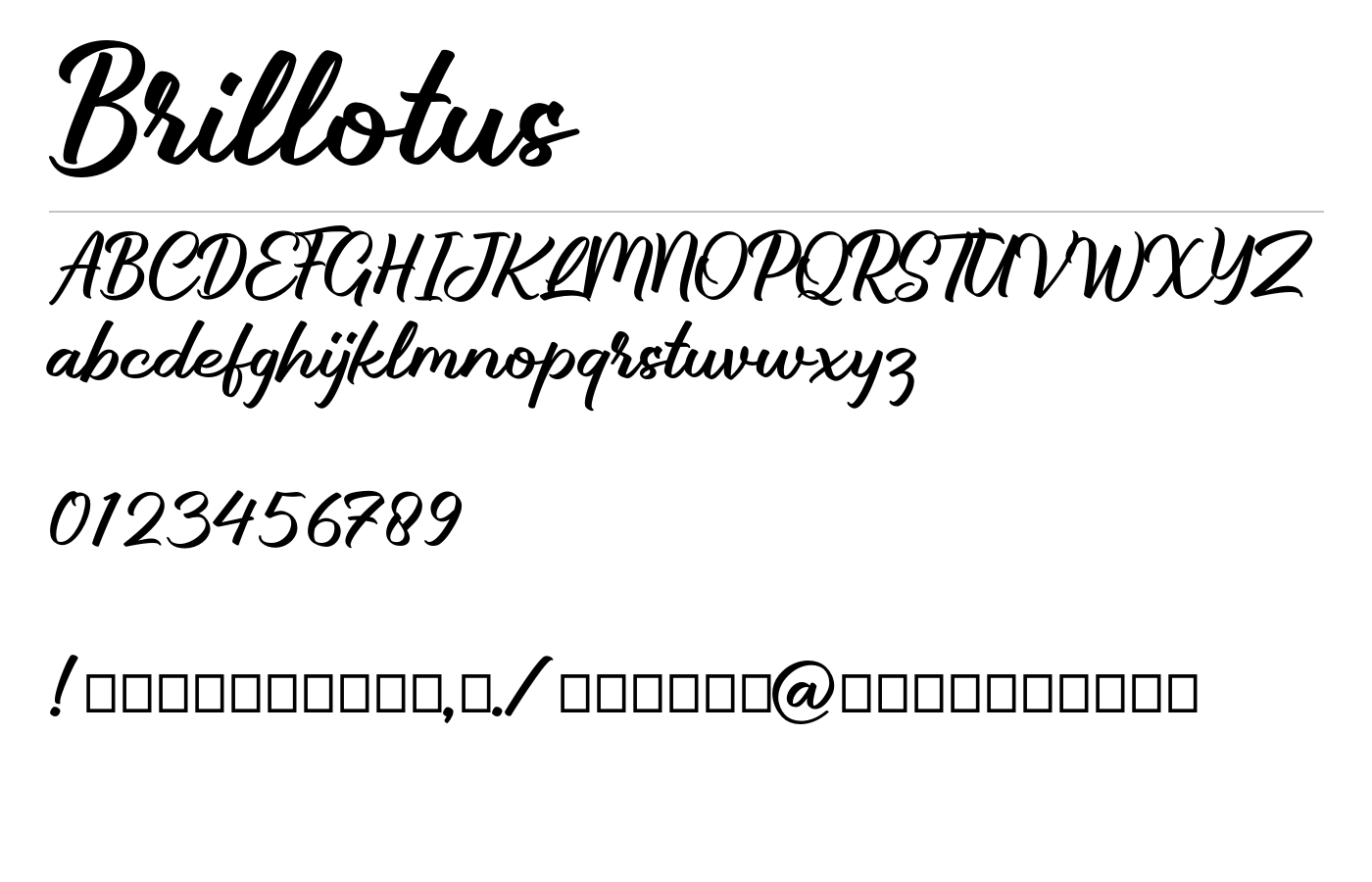
Brillotus is an elegant script font featuring smooth, flowing strokes with a medium weight and a lively, yet refined character. Its connected letterforms and rounded shapes give it a friendly and approachable feel, making it ideal for branding, invitations, and any design that seeks a personal, sophisticated touch. This font works beautifully in headlines and logos, adding a stylish and expressive flair to your projects.
Brillotus Font
About Brillotus Font